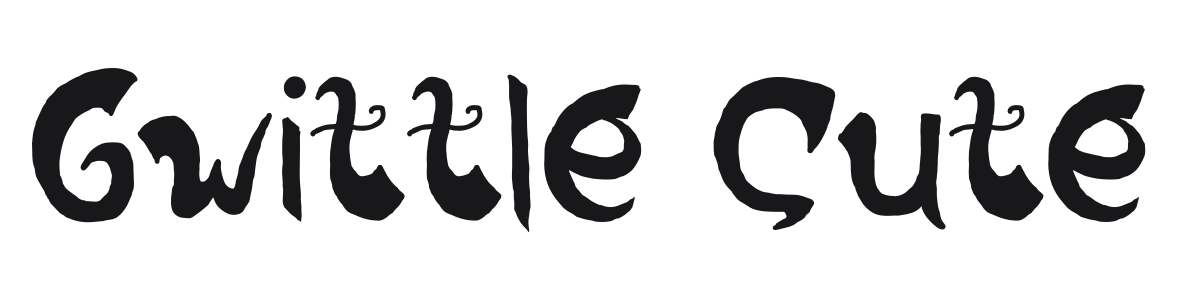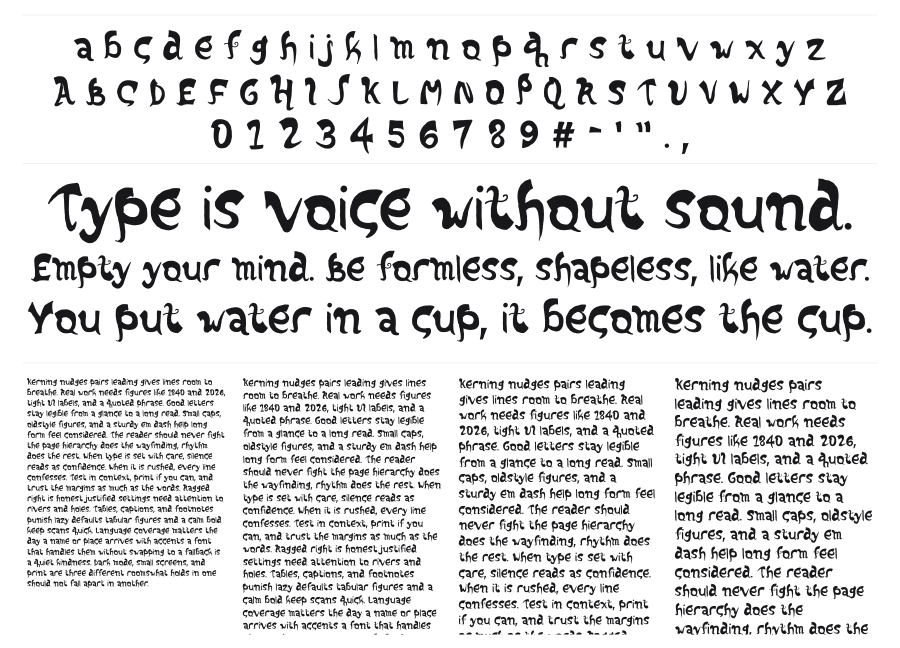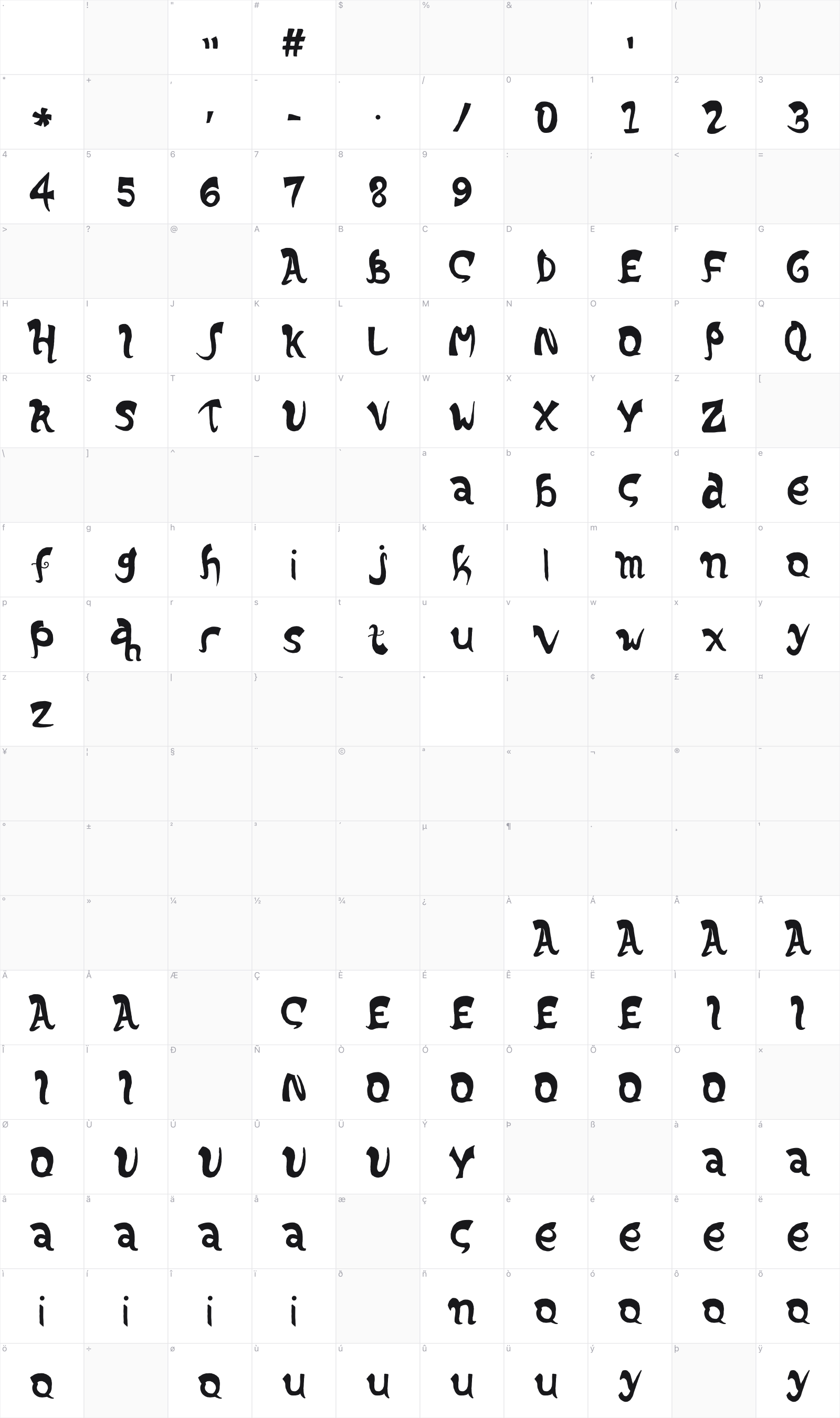
Gwittle Cute
Gwittle Cute is a bold, curly display font with spiraling terminals that give every character an irresistible storybook quality. The thick rounded strokes taper into tight curls, borrowing loosely from uncial calligraphy but filtered through a distinctly playful, modern sensibility. It works best large, where the decorative details can do their thing.